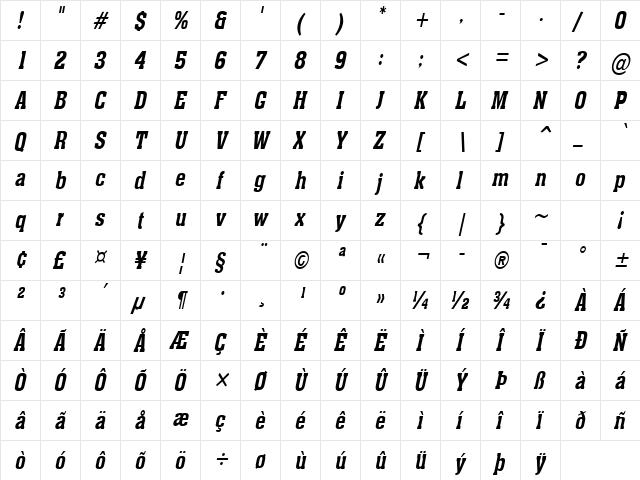
Ache-Condensed Bold Italic
Design Context for Ache-Condensed Typeface
Ache-Condensed offers clean, dependable letterforms without strong stylistic allegiance, making it a practical choice for designers who need flexibility. The dynamic lean of this cut emphasises speed and emphasis in any layout. Its bold stroke weight gives it real presence on the page. Its narrow stance lets it pack a punch even in space-constrained designs.
Pro Tip: Try Ache-Condensed for annotation and caption copy alongside an upright companion — the contrast in angle creates a dynamic but ordered typographic system.